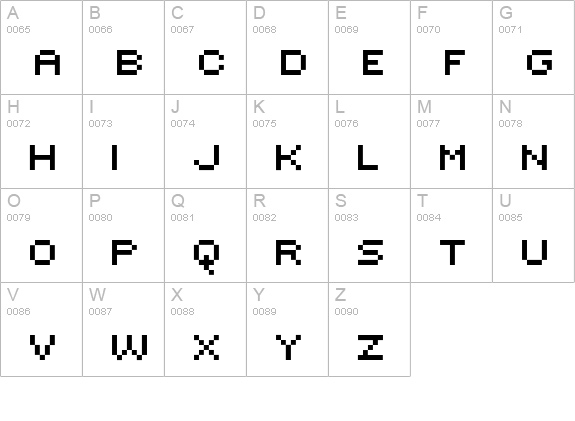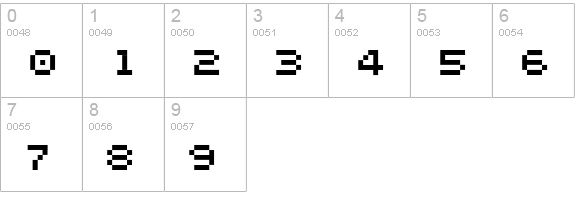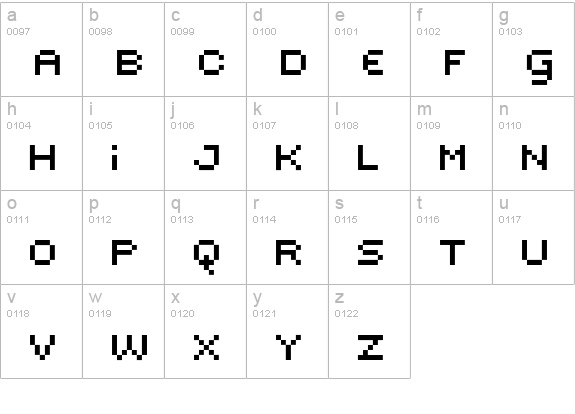
Sevenet7 Font Details
Introducing Sevenet7 font, a versatile and modern typeface that will elevate your design projects to new heights. This captivating font exudes a sense of elegance and sophistication, making it the perfect choice for anything from luxury branding to editorial layouts. With its clean lines and balanced proportions, Sevenet7 font effortlessly combines classic typography with a contemporary twist. Each letter is meticulously crafted to ensure legibility and readability, making it an ideal choice for both print and digital applications. But what sets Sevenet7 font apart from the rest is its accessibility. This incredible font is available for free, allowing designers and creatives of all backgrounds to enhance their work without breaking the bank. Simply head over to FontsMarket.com and download Sevenet7 font to unlock its full potential. Whether you're designing a logo, creating a website, or crafting eye-catching headlines, Sevenet7 font will add a touch of sophistication and professionalism to your projects. Its versatility is unparalleled, making it suitable for a wide range of design styles and themes. The timeless appeal of Sevenet7 font lies in its ability to seamlessly blend into any design composition. Its clean and modern aesthetic makes it a go-to choice for designers seeking a font that effortlessly communicates elegance and refinement. So why wait? Take advantage of this incredible opportunity to elevate your design game with Sevenet7 font. Download it for free at FontsMarket.com and unlock its endless possibilities. With Sevenet7 font, your designs will captivate and inspire, leaving a lasting impression on your audience.